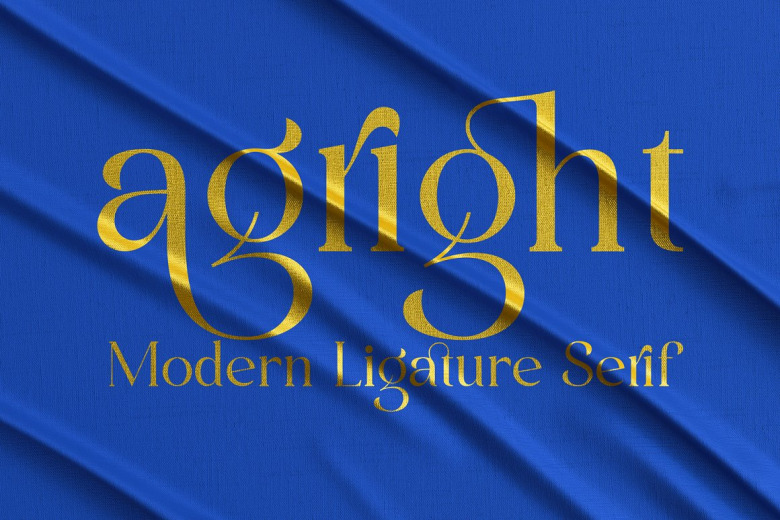
Agright Font
Agright Font is a stylish OpenType rich serif type with letters that seem to dance and twist harmoniously together – to form unique & elegant typography designs. A large selection of interwoven Opentype ligatures, means ample selection and variety in your finished look.
This is perfect for BRANDING and LOGO DESIGN. You will get classy, elegant, and certainly unique logos with this font.
Agright Serif Font